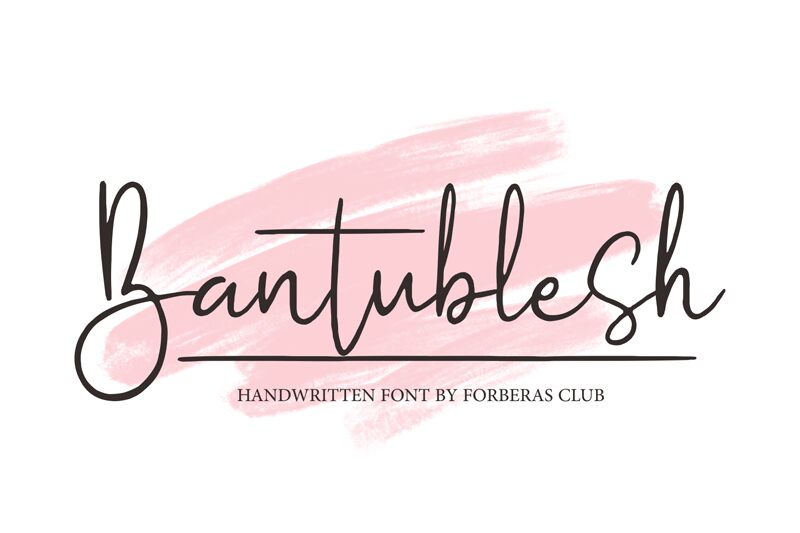
Bantublesh is a whimsical and playful handwritten font, designed by Forberas Club. With its extra-light weight, Bantublesh is perfect for creating a delicate and airy feel in your designs. This font would be ideal for projects such as wedding invitations, greeting cards, or any project that requires a soft touch. Its handwritten style makes it feel personal and approachable, adding warmth to any design. Whether you're creating an elegant logo or designing a social media post, Bantublesh's unique style will help your work stand out from the crowd. Try it out today and add some extra charm to your next project!